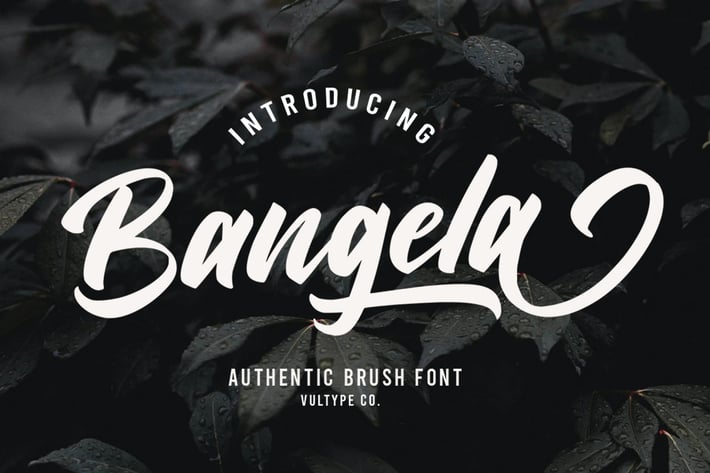
Bangela Bold Brush Font
Bangela a bold connected script font inspired by the spirit of adventure and outdoor activities.
Bangela is perfect for branding projects, logo, wedding designs, social media posts, advertisements, product packaging, product designs, label, photography, watermark, invitation, stationery and any projects that need handwriting taste.